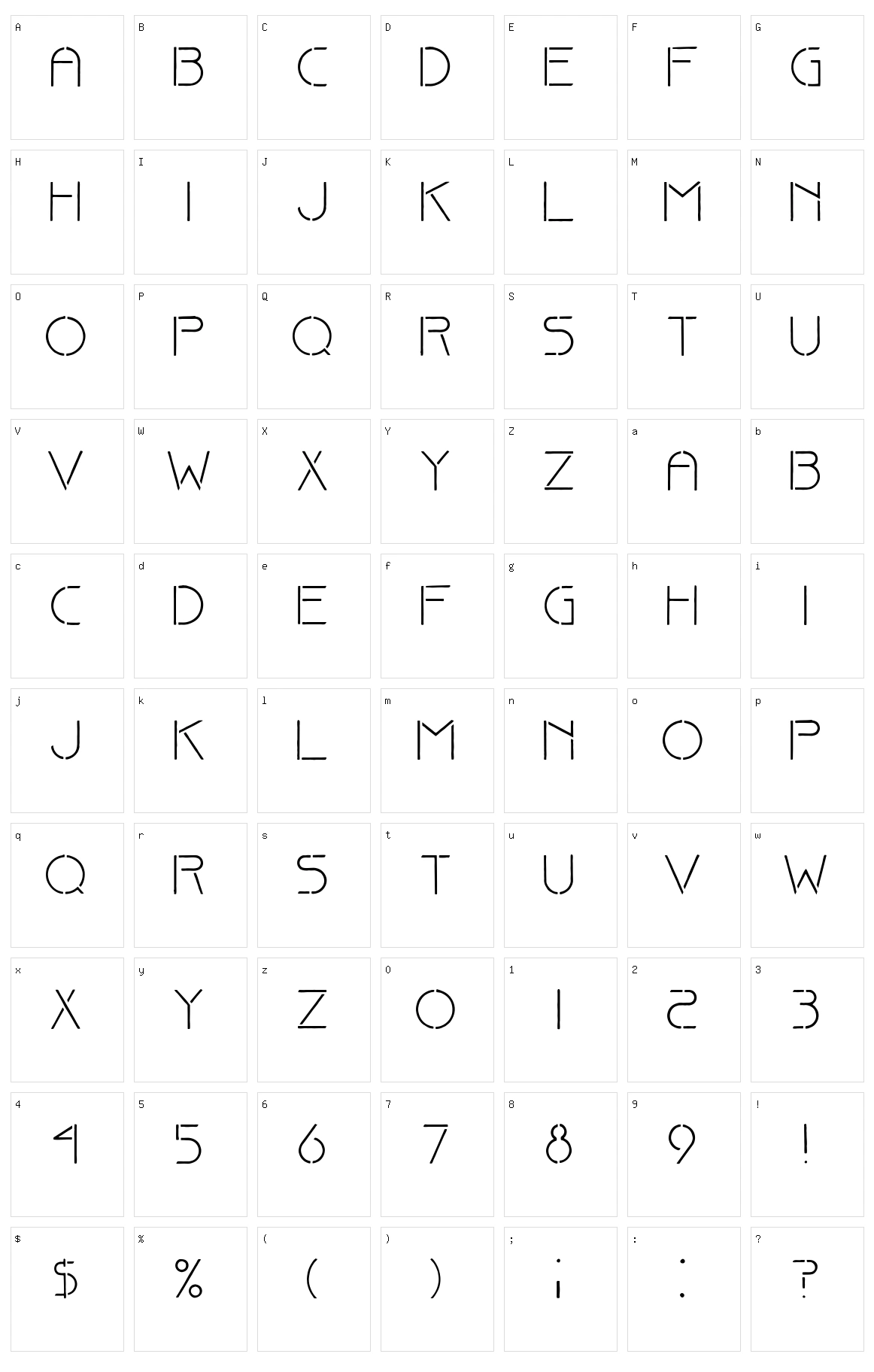
The free font Fine Stencil is carefully designed by BC, showcasing a thoughtful balance of creativity and usability and falls under the Stencil font style. When you download the ZIP file, it contains only 13.07 KB of font files, making it lightweight and quick to download. Please review the license details below to understand permitted usage and distribution rights. If license information is not available, we recommend using this font for personal projects only or contacting the author directly for commercial usage permissions.